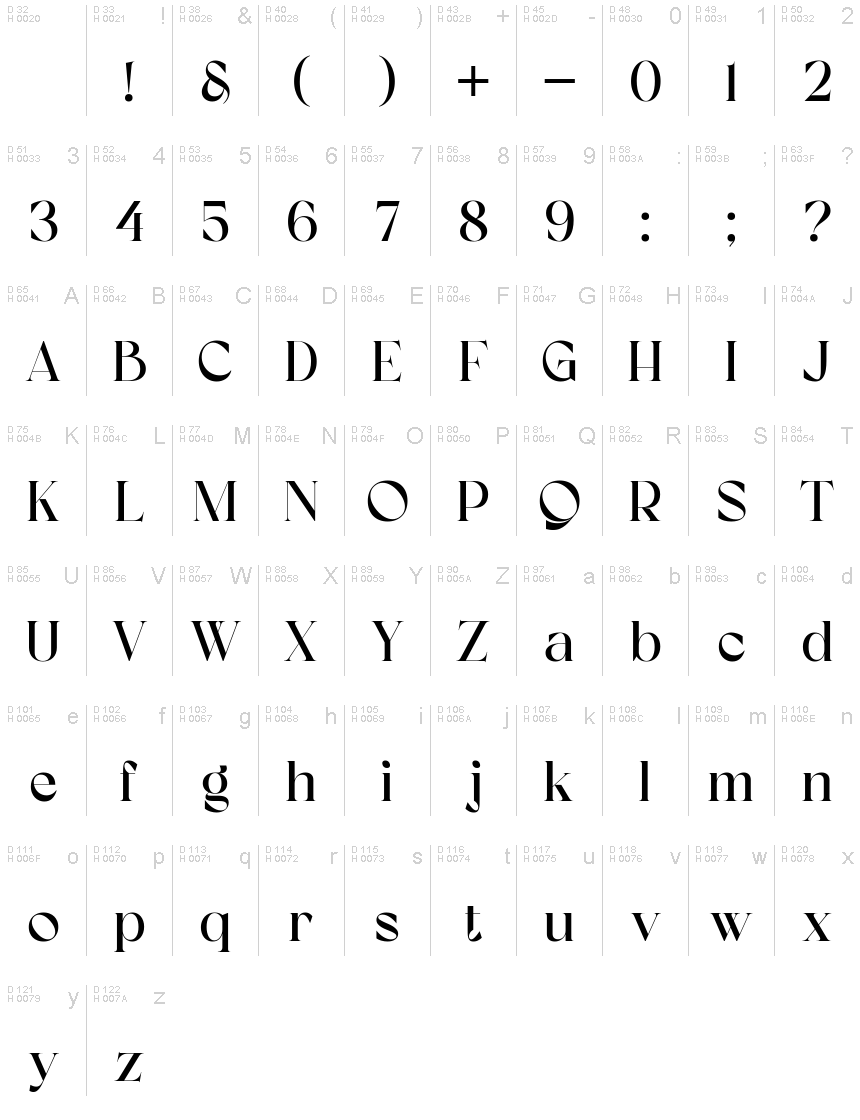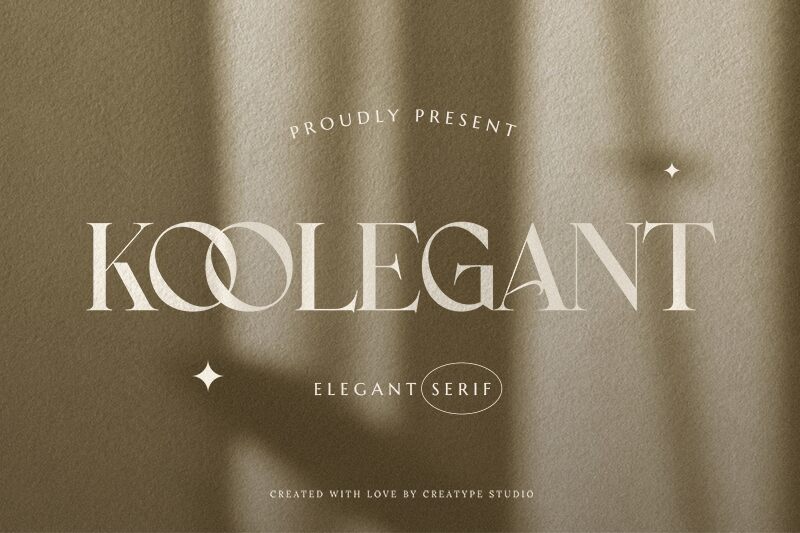
Koolegant
Koolegant is a serif font created by Creatype Studio that is intriguing because of its smooth, classy curves. This font catches the attention by mixing traditional refinement with an understatedly modern touch in a harmonious way – it’s not too much old school or new school. Attractiveness of this typeface lies in those serifs at the ends of letters and how they look; they make you go “wow”! So don’t limit yourself when choosing what project to use Koolegant on next because there are so many possibilities where this versatile beauty could fit right in.
It’s amazing just how adaptable Koolegant can be within different design environments without losing any of its inherent qualities. Whether used for magazine spreads or jackets, corporate logos or fancy party invites – this font has got all bases covered in terms of versatility. The refined appearance most suits luxurious themes but also fits well with other high class concepts thanks to being both current feeling yet timeless looking at once.